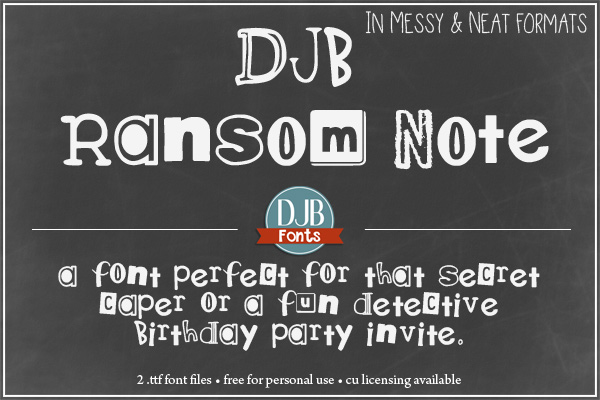
DJB Ransom Note Fonts
DJB Ransom Note Font = This font is PERFECT a secret caper, a detective story or a fun hide and seek birthday party invitation. Find it at darcybaldiwn.com
DJB Ransom Note Fonts– These fonts are PERFECT for a secret caper, a detective story or a fun hide and seek birthday party invitation.